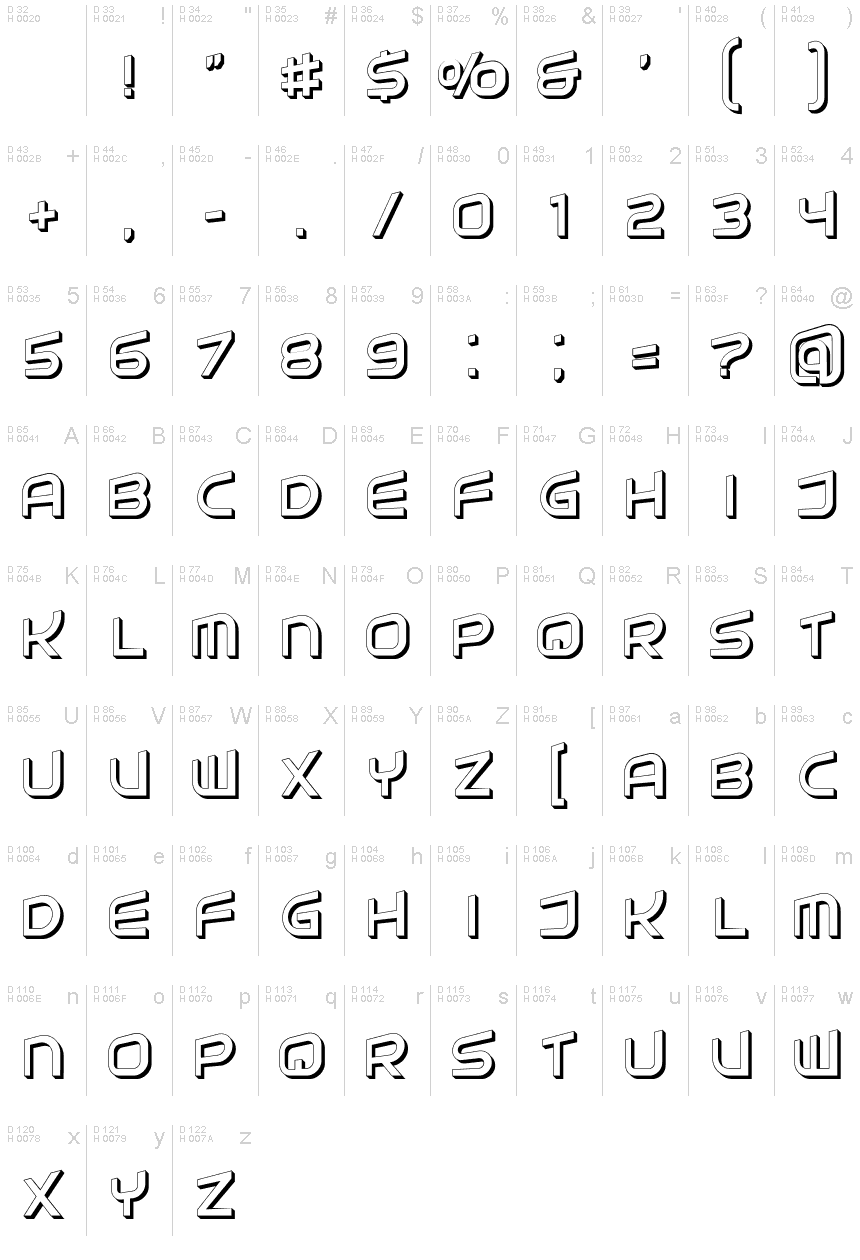
Rita of Cascia Regular
Rita of Cascia is a striking display font designed by Vladimir Nikolic. Its pseudo 3D style and expanded width create a bold and impactful presence that demands attention. With its semi-light weight, this font is perfect for use in a variety of projects where you want to make a statement without overwhelming the design. Use it on posters, billboards, or any project where you need to convey a strong message. Its unique style also makes it suitable for branding projects, logo designs, and even website headers. Stand out from the crowd with Rita of Cascia!